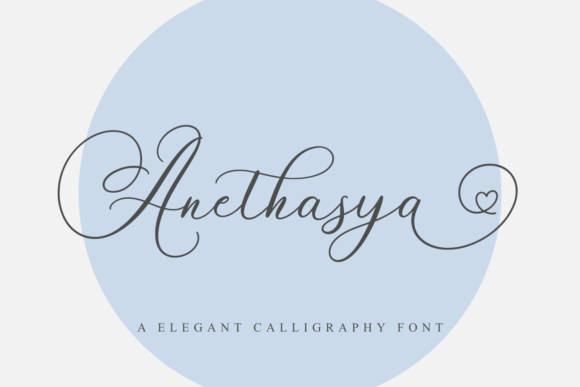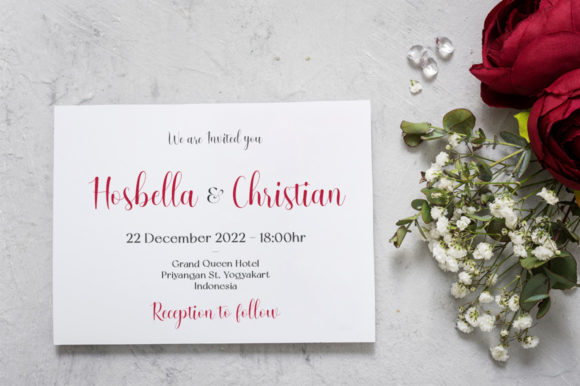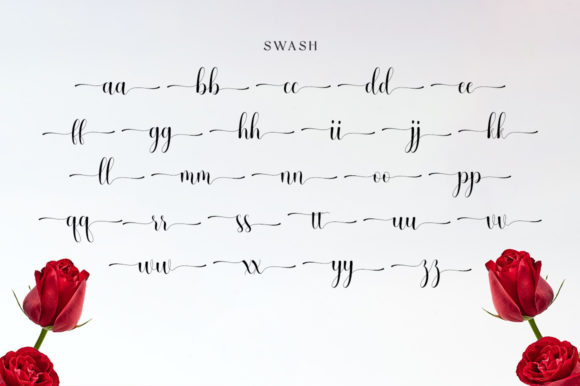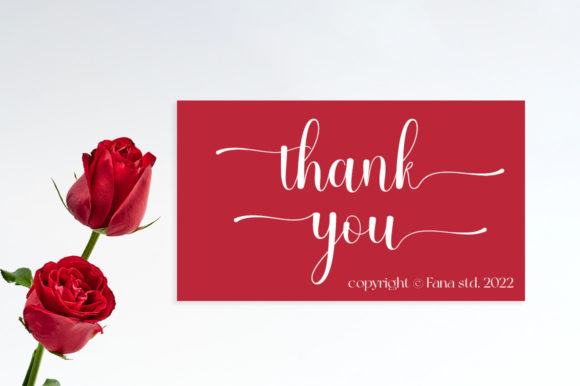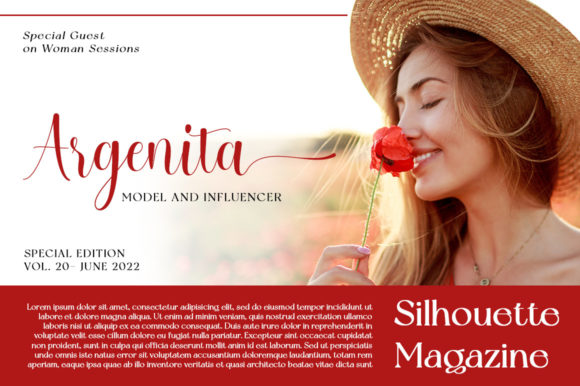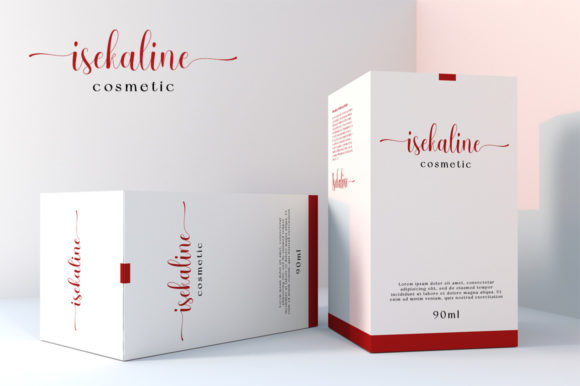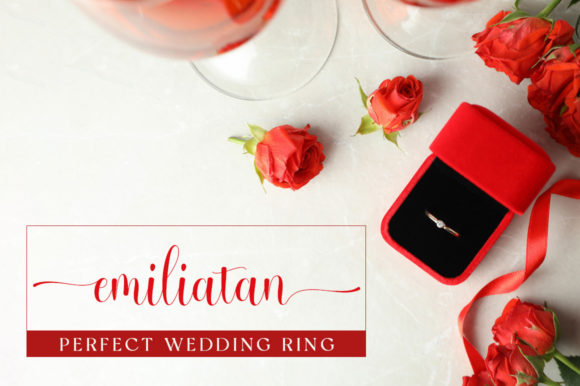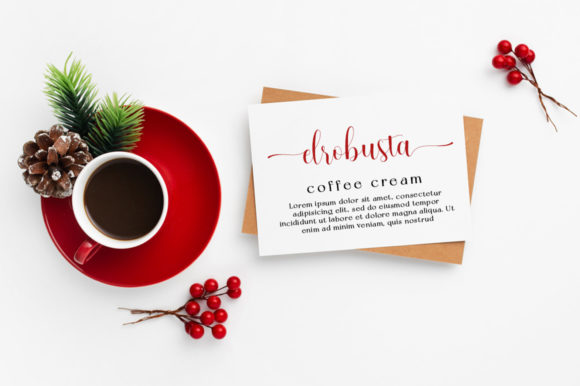
Anselma Font
About Anselma Font
Anselma is a dazzling script font. This font is neatly crafted and highly detailed. Anselma is PUA encoded which means you can access all of the amazing glyphs and ligatures with ease!